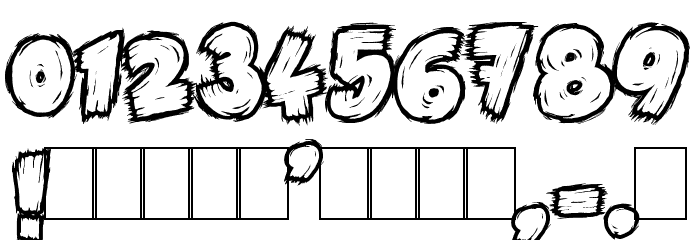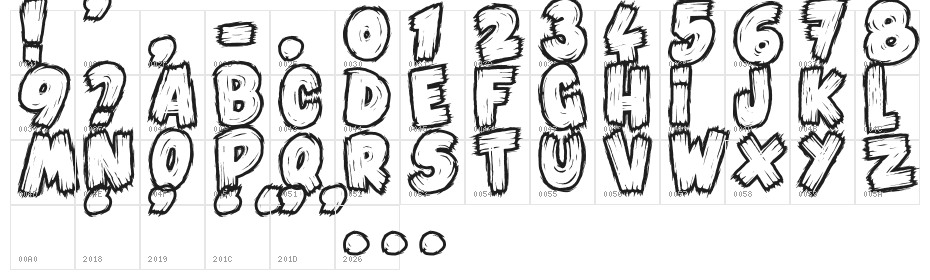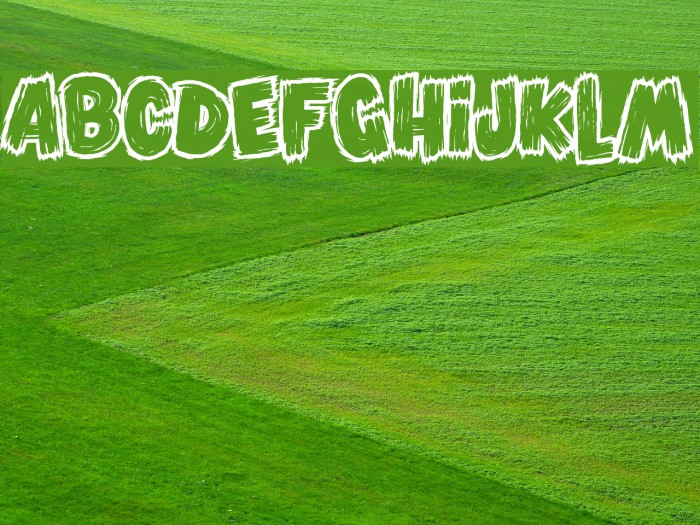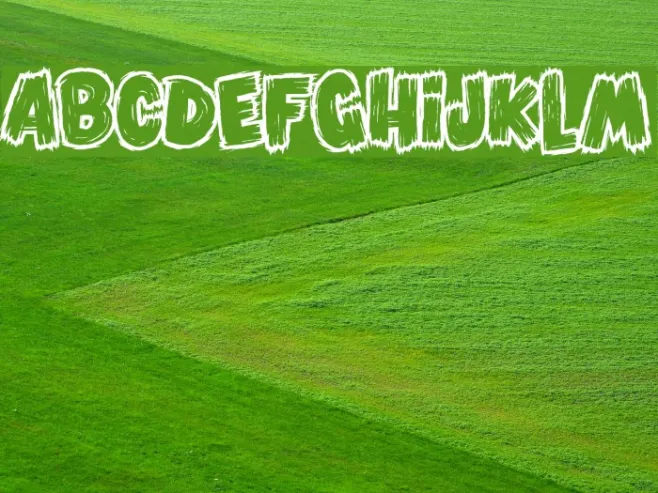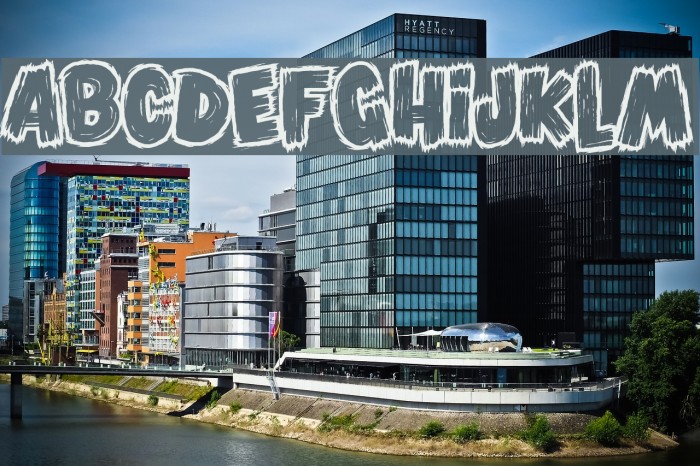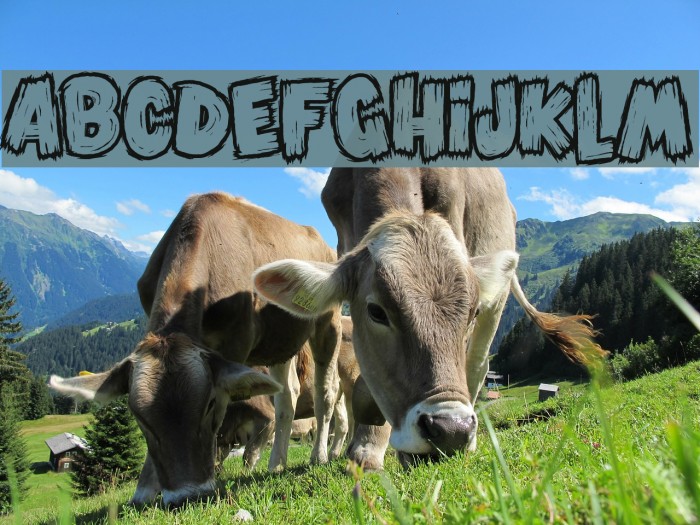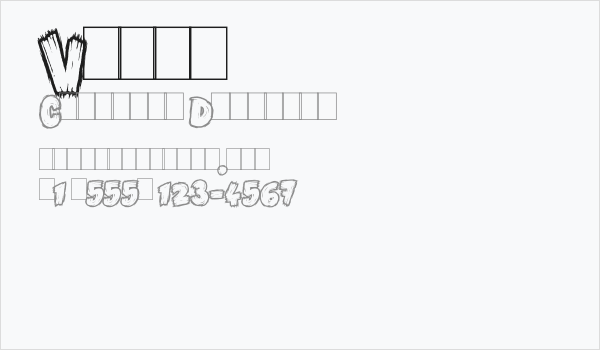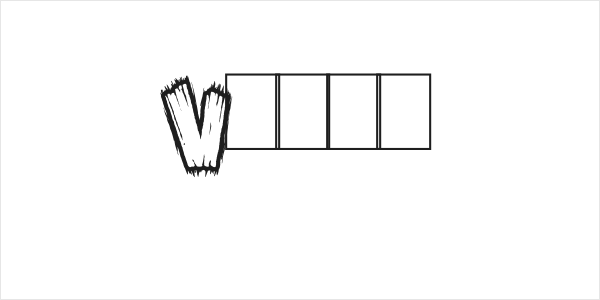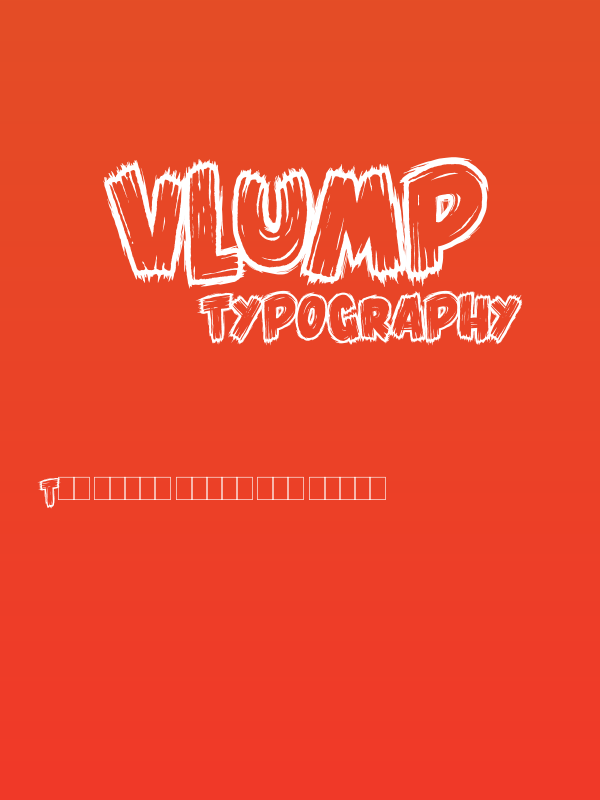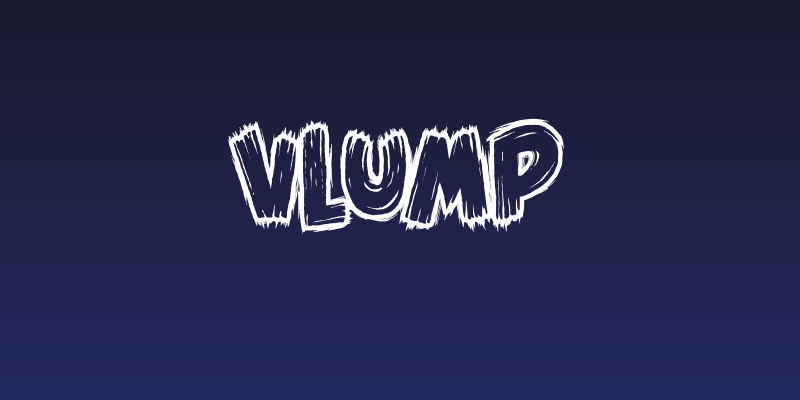
Vlump Font
Vlump Description
This font is characterized by its bold, energetic, and dynamic appearance. Each letter and number is designed with a rough, textured edge that gives it a hand-drawn, graffiti-like style. The strokes are thick and uneven, creating a sense of movement and vibrancy. The uppercase letters are particularly striking, with exaggerated forms that demand attention. The numbers and special characters maintain the same lively aesthetic, ensuring consistency across all elements. This font is ideal for projects that require a bold statement or a playful, artistic touch.
| Proposed Projects | Perfect for posters, album covers, street art designs, and any project needing a bold, artistic flair. |